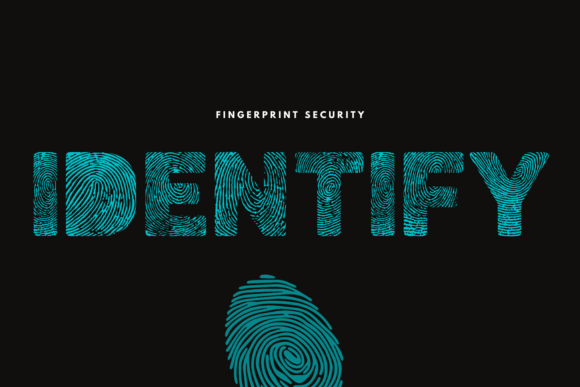
Identify Font: A Playful Display Typeface for Digital Branding
As a UI designer who ships landing pages, SaaS dashboards, and e-commerce experiences, I look for display fonts that do more than just “look cool.” They need rhythm, clarity at scale, and tonal consistency across devices. Identify stands out—not as a workhorse body font, but as a precise, expressive tool for moments that demand attention without sacrificing legibility or intent.
Visually, Identify is a clean yet characterful display typeface: geometrically grounded with subtle flair—soft curves, balanced proportions, and open counters that breathe on screen. It’s not cartoonish in the clichéd sense; it’s playful with purpose. The letterforms carry warmth and approachability while avoiding visual noise—critical when your hero headline needs to land in under two seconds on mobile.
Where Identify Earns Its Place in Your Web Layout
Use Identify where hierarchy and tone converge: hero section titles, product name displays, CTA buttons with personality, course module headers, and branded section dividers. It works especially well when you’re designing for audiences that value creativity, care, or curiosity—think boutique online stores, indie education platforms, children’s digital tools, or wellness coaching sites.
On a portfolio site, Identify adds distinction to project titles without competing with imagery. In an online store banner, it gives handcrafted goods or playful apparel immediate visual identity—even before users read the copy. For a course sales page, pairing Identify with a neutral sans serif (like Inter or Manrope) creates contrast that guides the eye from headline → benefit → action—supporting conversion-focused layout logic.
Readability & Responsiveness: Practical Considerations
Identify shines at sizes 32px and up on desktop, and scales cleanly down to 24px on mobile—provided line height stays generous (1.3–1.5x) and letter spacing is slightly opened (+20–40 units). Avoid cramming it into small navigation labels or micro-buttons; its decorative nature isn’t optimized for sub-16px use.
It performs reliably against both light and dark backgrounds—but test contrast rigorously. On dark mode interfaces, consider slightly increasing weight or adding a subtle text shadow for definition. When layered over image overlays, use a solid background tint or blur effect behind the text to preserve readability. Never rely solely on opacity reduction.
Font Pairing That Supports, Not Competes
Identify thrives in contrast. Pair it with a highly legible, low-contrast sans serif for body copy—something like Inter, Manrope, or IBM Plex Sans. These pairings create clear typographic roles: Identify sets the tone, the sans handles information flow. For editorial or luxury-leaning digital brands, try it with a restrained serif like Merriweather or Libre Baskerville—just keep serif usage limited to subheadings or pull quotes.
Avoid stacking multiple decorative fonts. Identify doesn’t need competition—it needs context. If your brand uses a script or handwritten font elsewhere (e.g., logo lockup), reserve Identify for structural headings only. Consistency > variety when building recognizable digital identity.
When to Reach for Identify—and When to Pause
Reach for Identify when you need:
- A friendly, confident tone for a creative agency’s homepage headline
- Distinctive section headers in a digital course platform
- Brand-aligned banners for Instagram ads or email hero images
- Logo text alternatives or wordmarks for startups emphasizing approachability
- Visual anchors in interactive prototypes or design system documentation
Pause before using Identify for:
- Long-form article headlines (beyond 6 words)—its rhythm weakens with dense phrasing
- UI labels inside forms or navigation menus—stick with functional sans serifs there
- Accessibility-critical elements like error messages or legal footers—clarity must outweigh charm
- Brands aiming for strict minimalism, corporate authority, or technical precision
In practice, I’ve used Identify to reframe how a children’s learning app communicates progress (“Level Up!” badges), to give warmth to a therapist’s booking page headline (“You’re Ready to Begin”), and to distinguish product categories in a handmade ceramics shop (“Stoneware • Glazed • Limited Edition”). Each time, it contributed to tone without compromising scannability—and that’s rare for a display font.
Typography in digital design isn’t about decoration. It’s about shaping how users feel before they even read a word. Identify delivers that intentionality: simple enough to load fast, distinctive enough to be remembered, and flexible enough to support real business goals—from trust-building to conversion, from brand recall to responsive clarity.